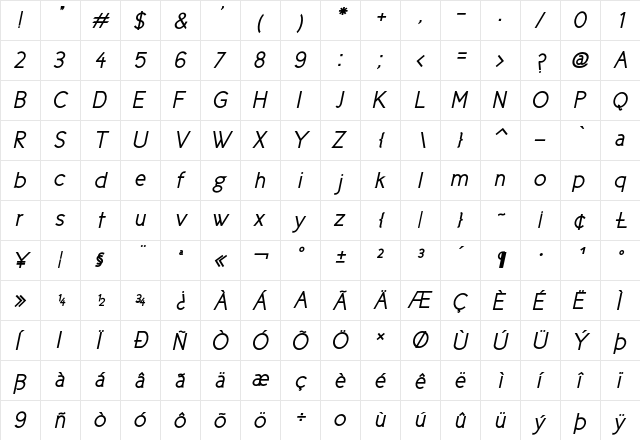
Cicle Gordita Italic
| Style | Gordita Italic |
| Foundry | La Tipomatika |
| Designer | La Tipomatika (Digital Type Foundry) |
Design Context for Cicle Typeface
Cicle is a composed and adaptable typeface that performs quietly and consistently across a wide range of design contexts. Its italic angle brings a sense of urgency and motion to the letterforms.